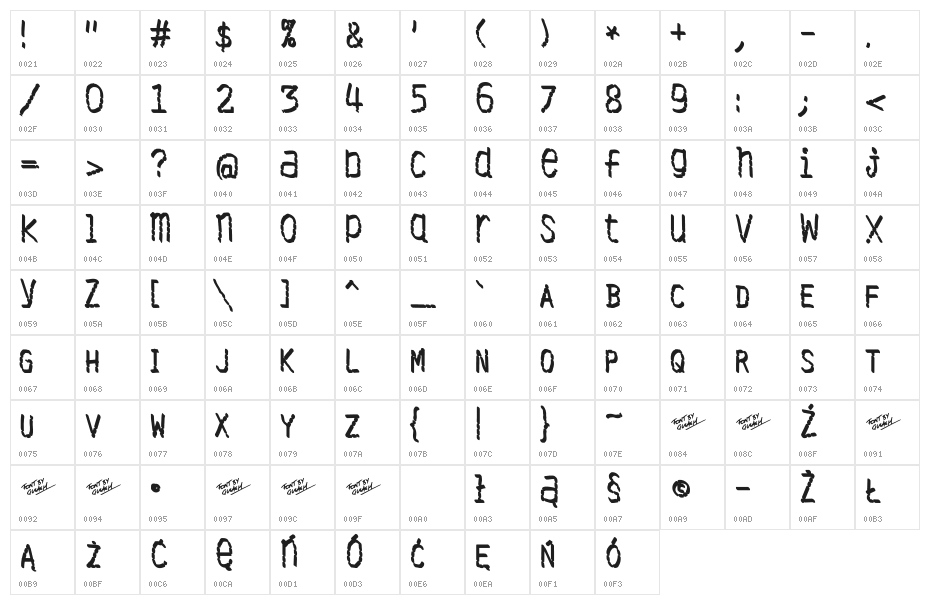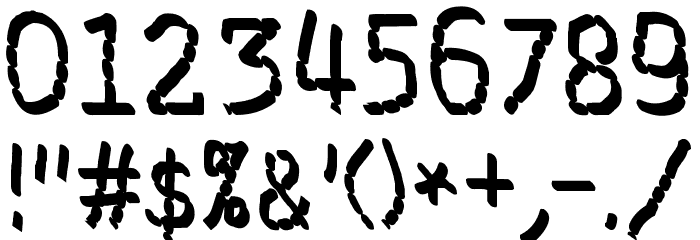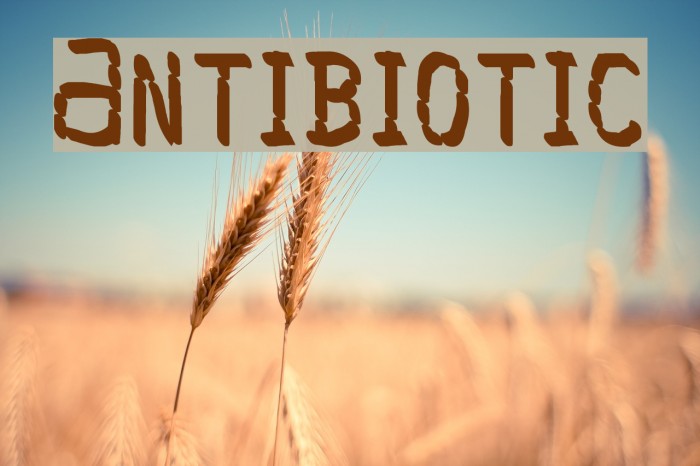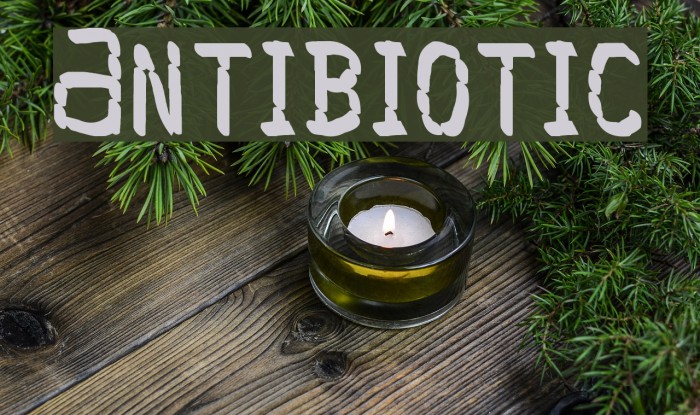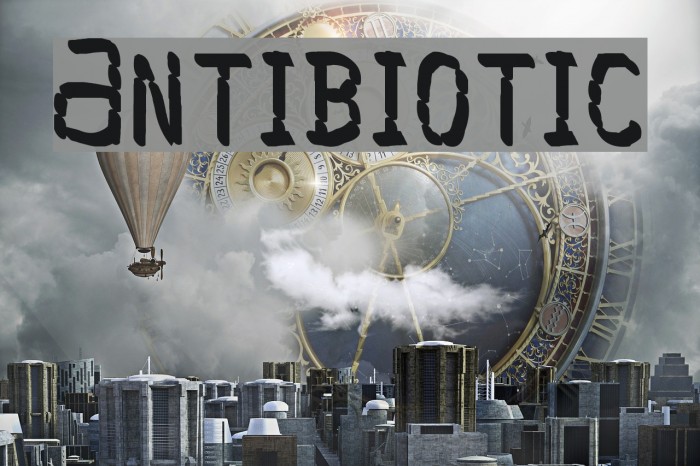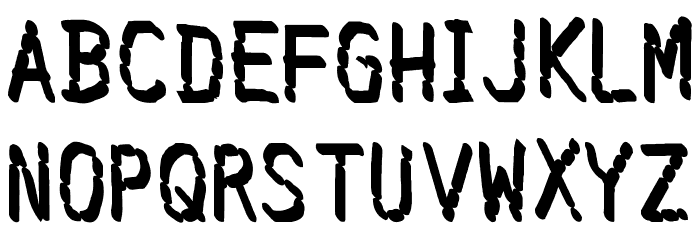
Antibiotic Font
Antibiotic Description
This font features a unique, organic design with a playful and irregular appearance. The characters are bold and have a hand-drawn quality, with uneven edges and varying stroke thicknesses that give it a dynamic and lively feel. The uppercase and lowercase letters maintain a consistent style, while the numerals and special characters complement the overall aesthetic. The font's distinctiveness makes it stand out, ideal for creative and informal projects.
| Overall Style | Playful, Artistic |
| Use Case | Headlines, Posters, Creative Branding |
| Proposed Projects | Perfect for children's books, creative posters, playful branding, and artistic projects. |